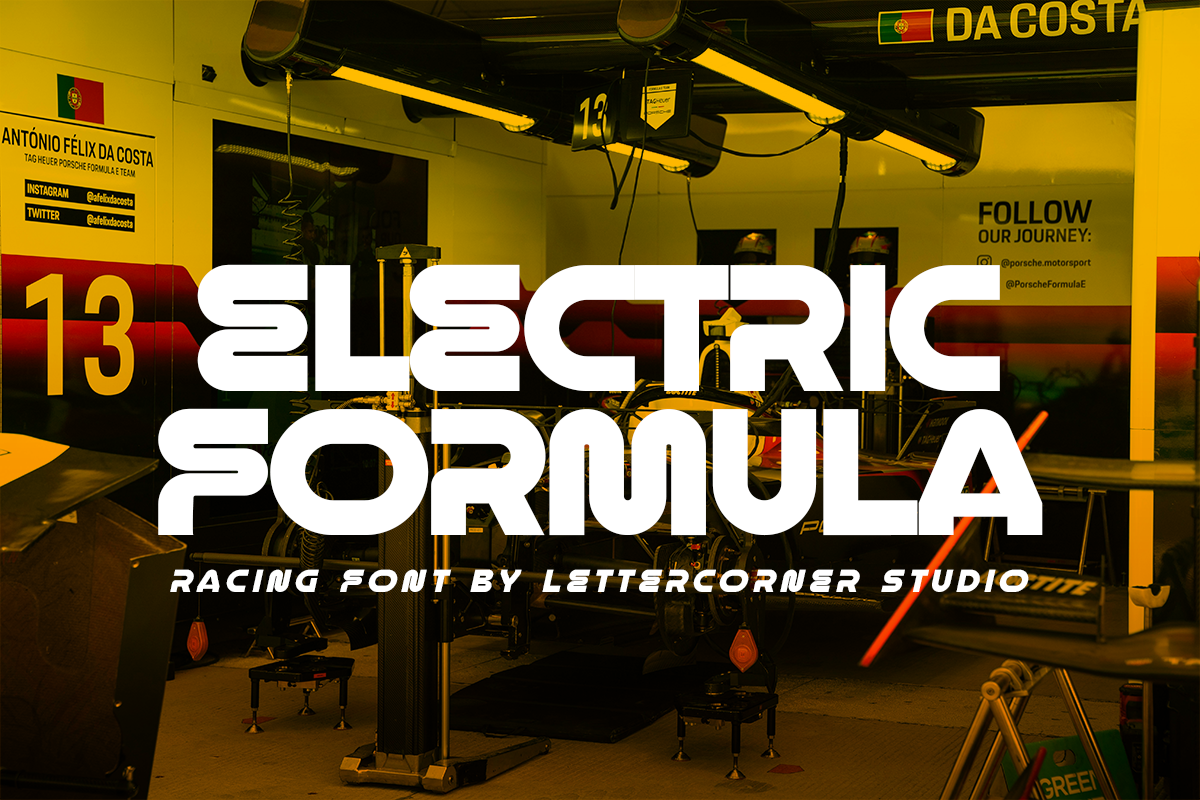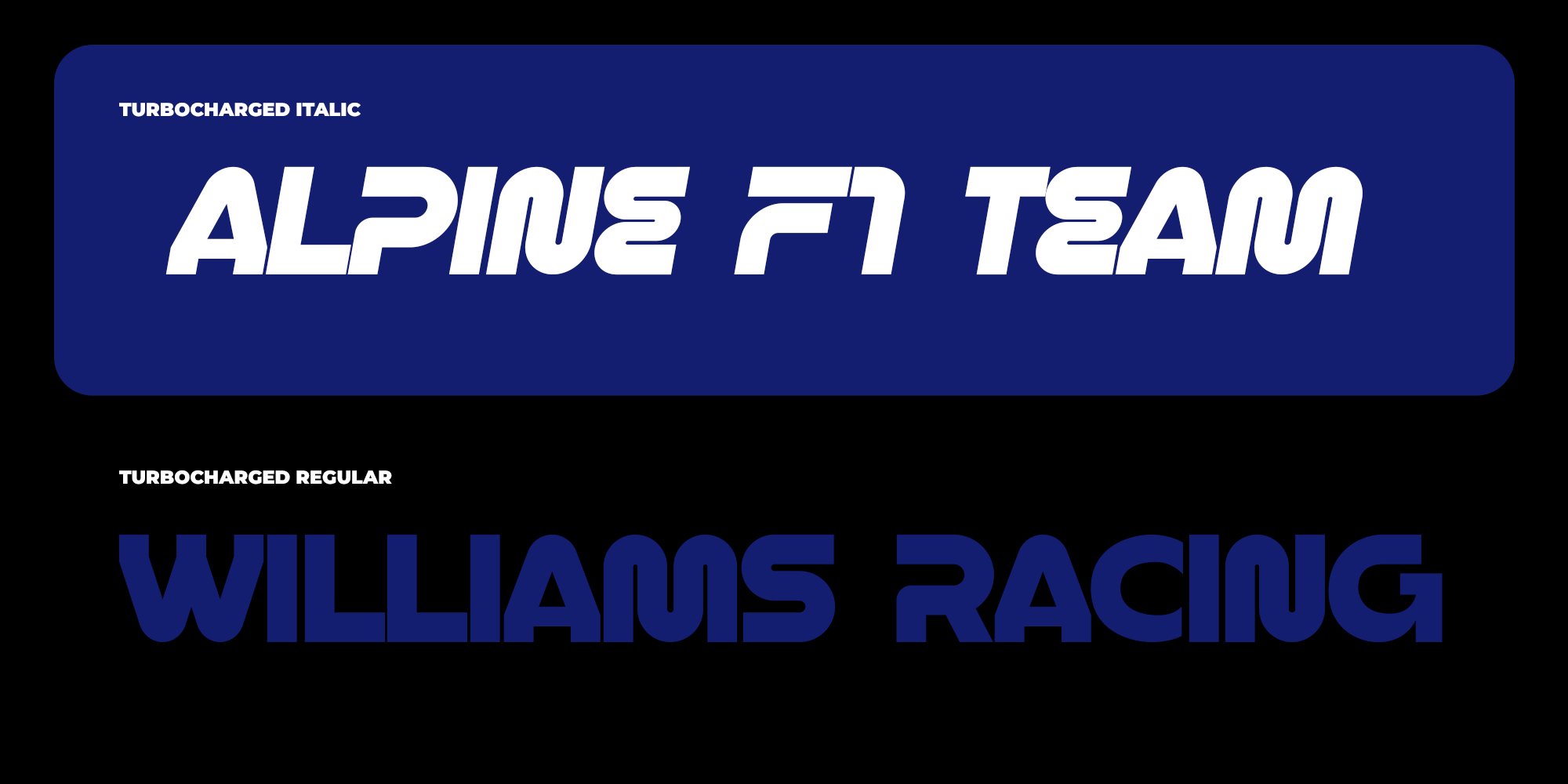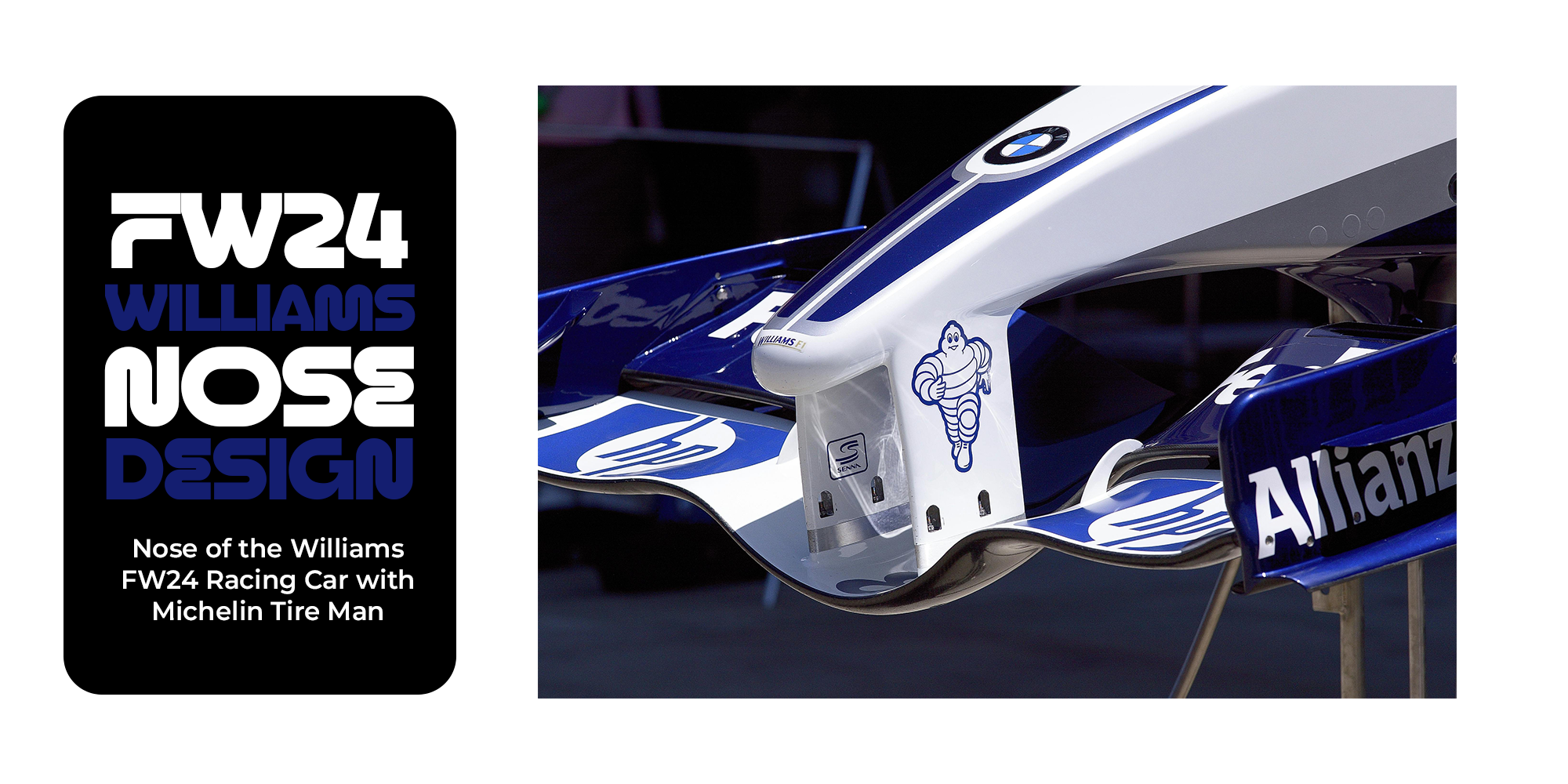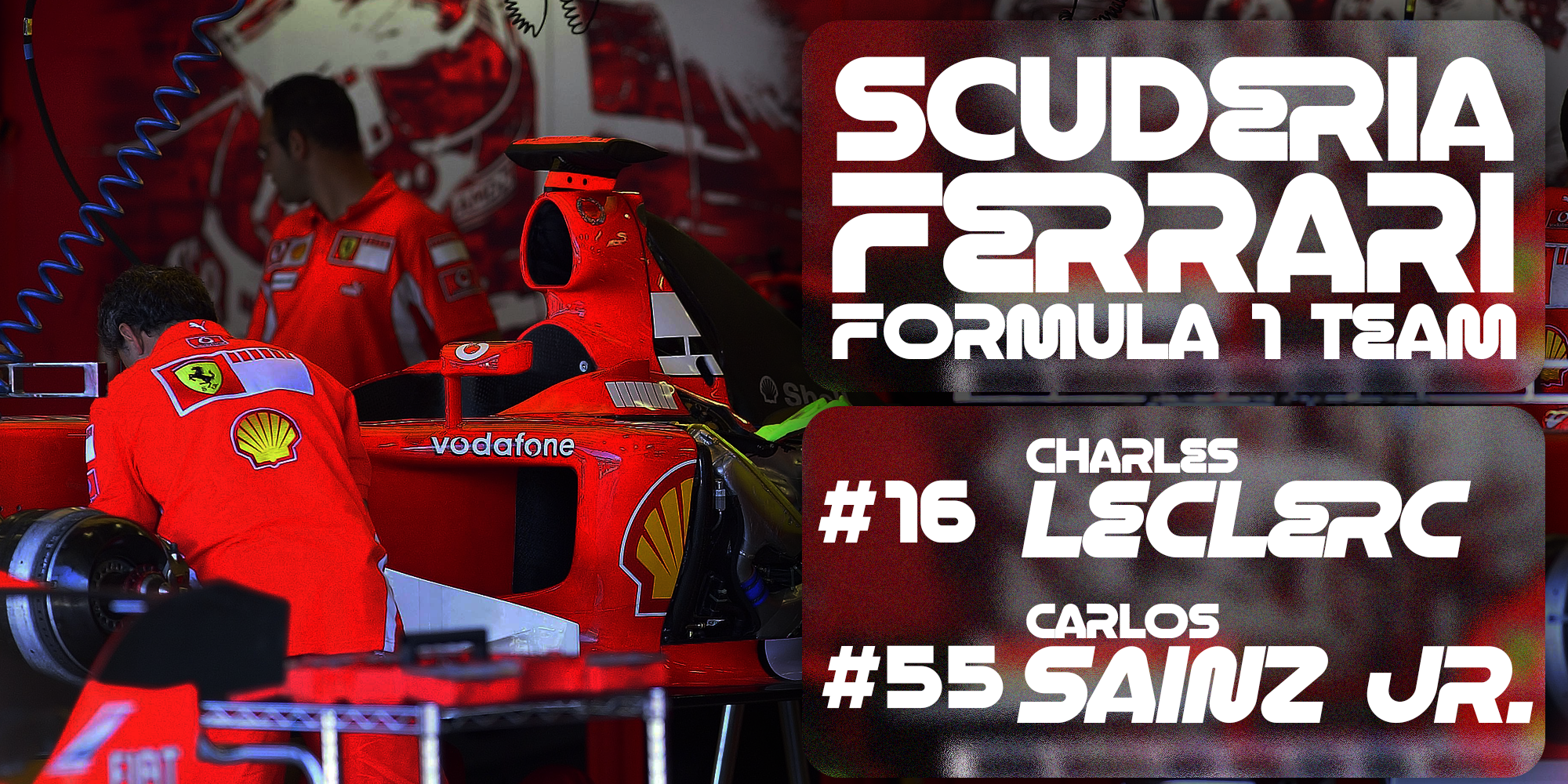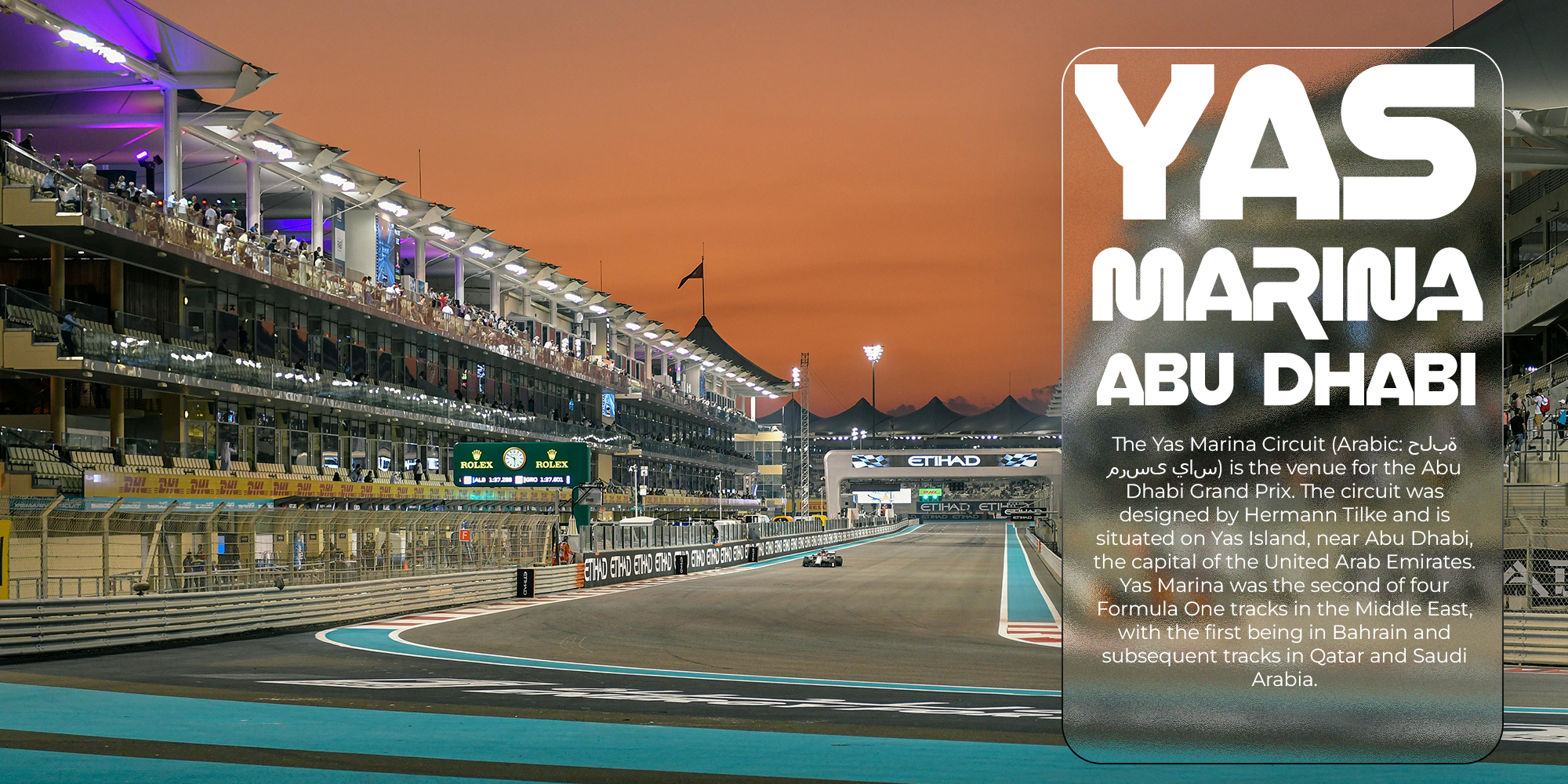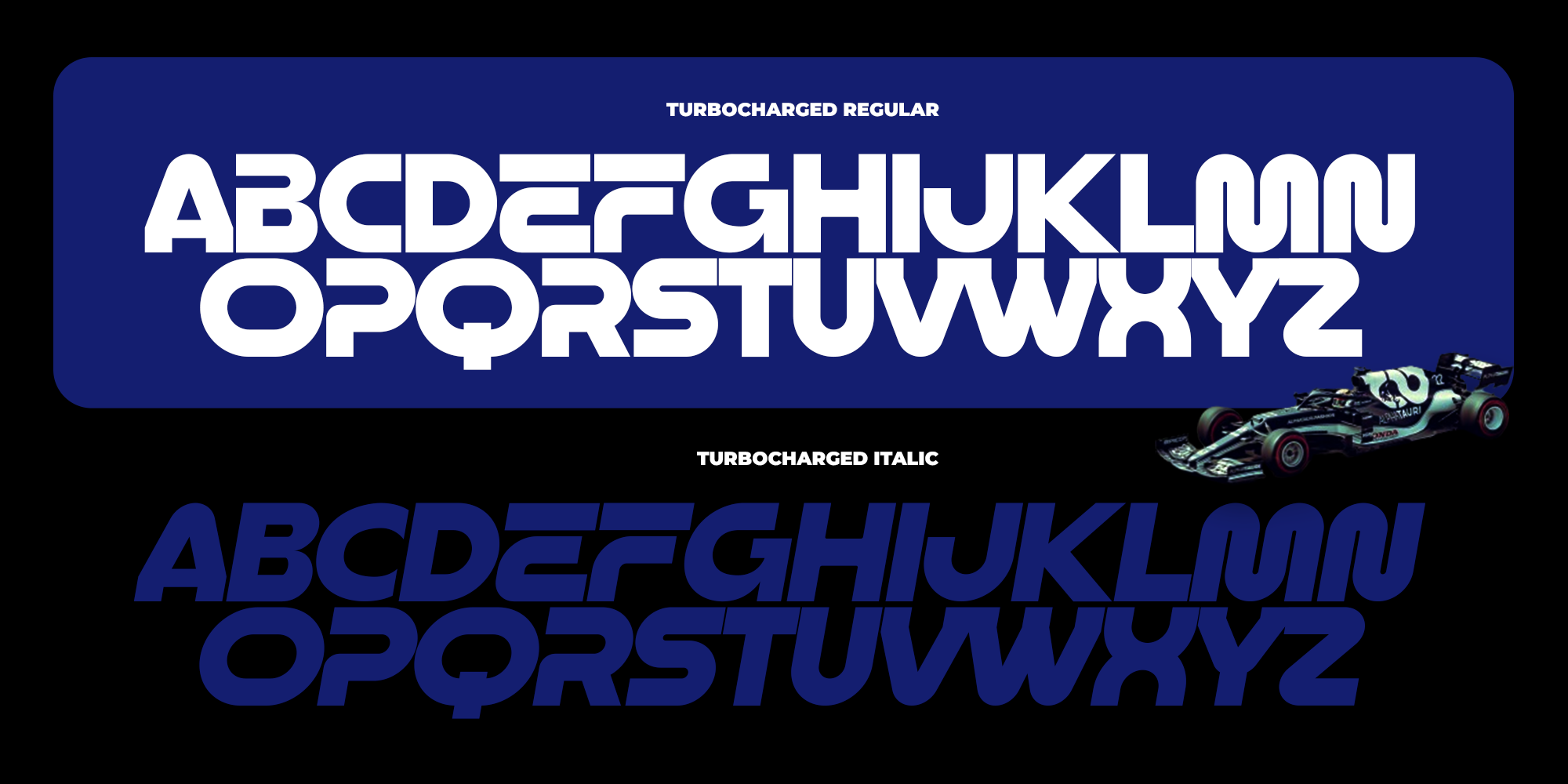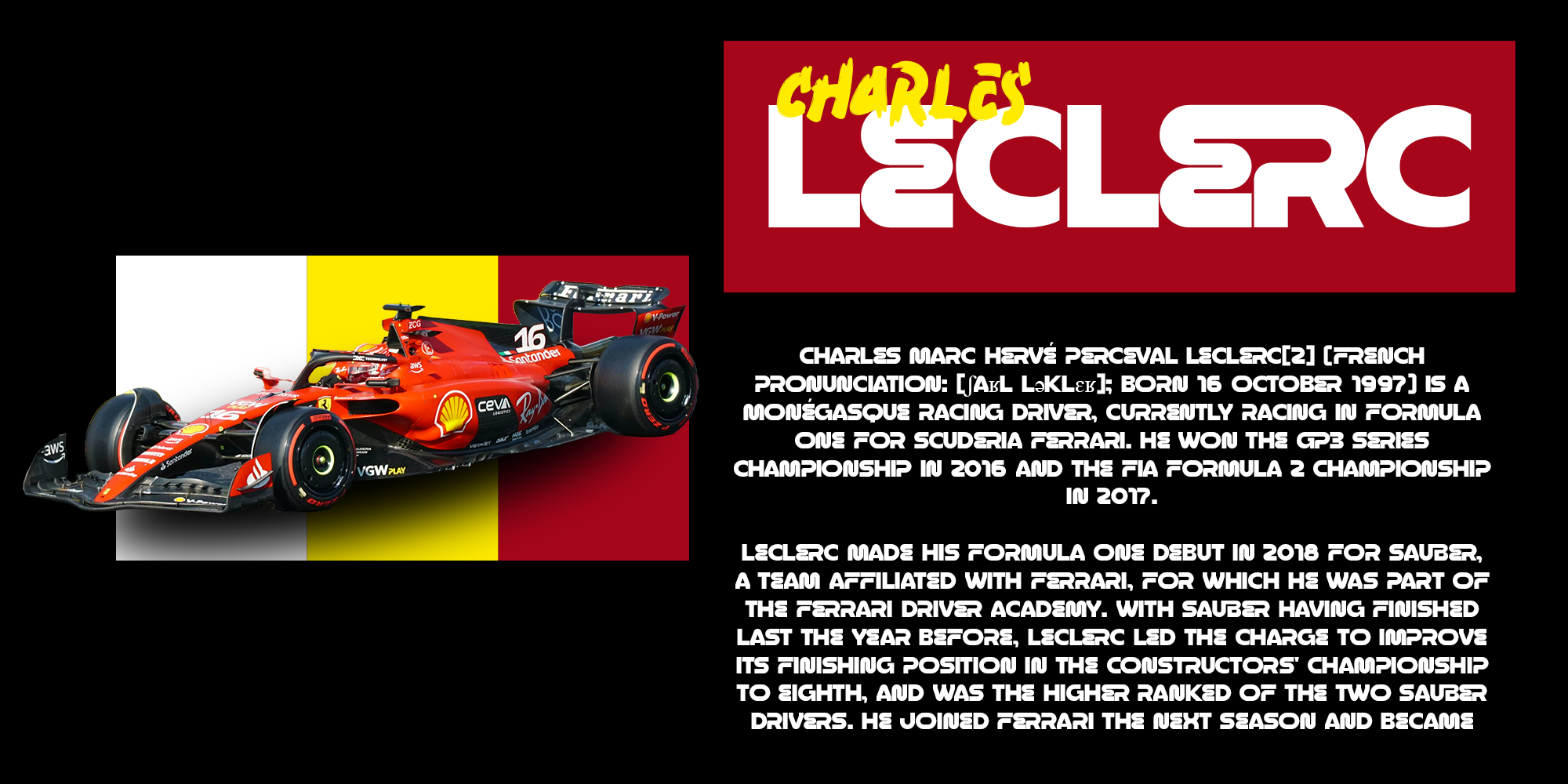
Electric Formula
Electric Formula — High-Voltage Racing Display Font
Speed has a sound. It has a shape. Electric Formula is a display font that captures both — born from the visual language of motorsport and the raw energy of electric racing, where cutting-edge technology meets the primal thrill of velocity. Every letterform is built like a race car: lean, aerodynamic, and engineered for one purpose — to move fast and look extraordinary doing it.
With 59 glyphs designed with precision and attitude, Electric Formula is purpose-built for high-impact applications. Its letterforms draw from the sharp angles and aggressive geometry found on race liveries, pit boards, and championship graphics — the kind of typography that reads instantly at 300 km/h. There is nothing soft here. Every stroke is deliberate, every edge intentional.
Available in 2 styles:
• Regular — sharp, forward-driven letterforms with the stance of a car on the grid, coiled and ready
• Italic — pushed further into motion, as if already mid-corner, trailing energy behind every character
Perfect for motorsport branding, gaming, energy drink campaigns, sports apparel, esports identities, and any project that needs to feel like it’s running on full power — because some fonts don’t walk. They race.